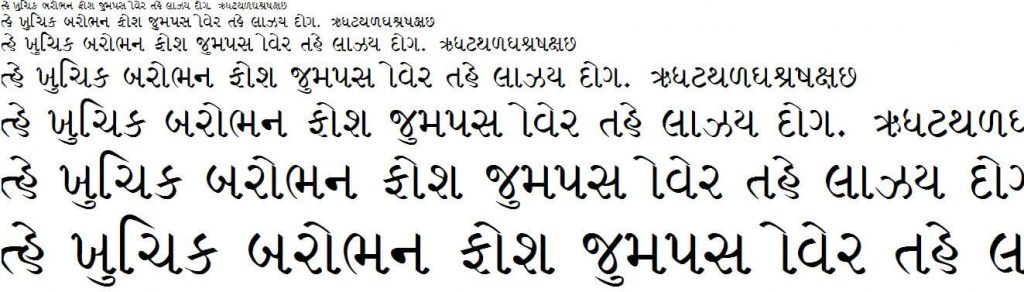
Gujarati Saral-1 Font belongs to the Brāhmī script family, which is a writing system related to Devanagari and is utilized in various languages. Just like Gujarati, it is important to note that there are variations of Sanskrit written in Devanagari, Kutchi, and Avestan.
This time period is used for both language and a writing method, but now not the alphabet seeing that this writing method is the abugida a segmental system.